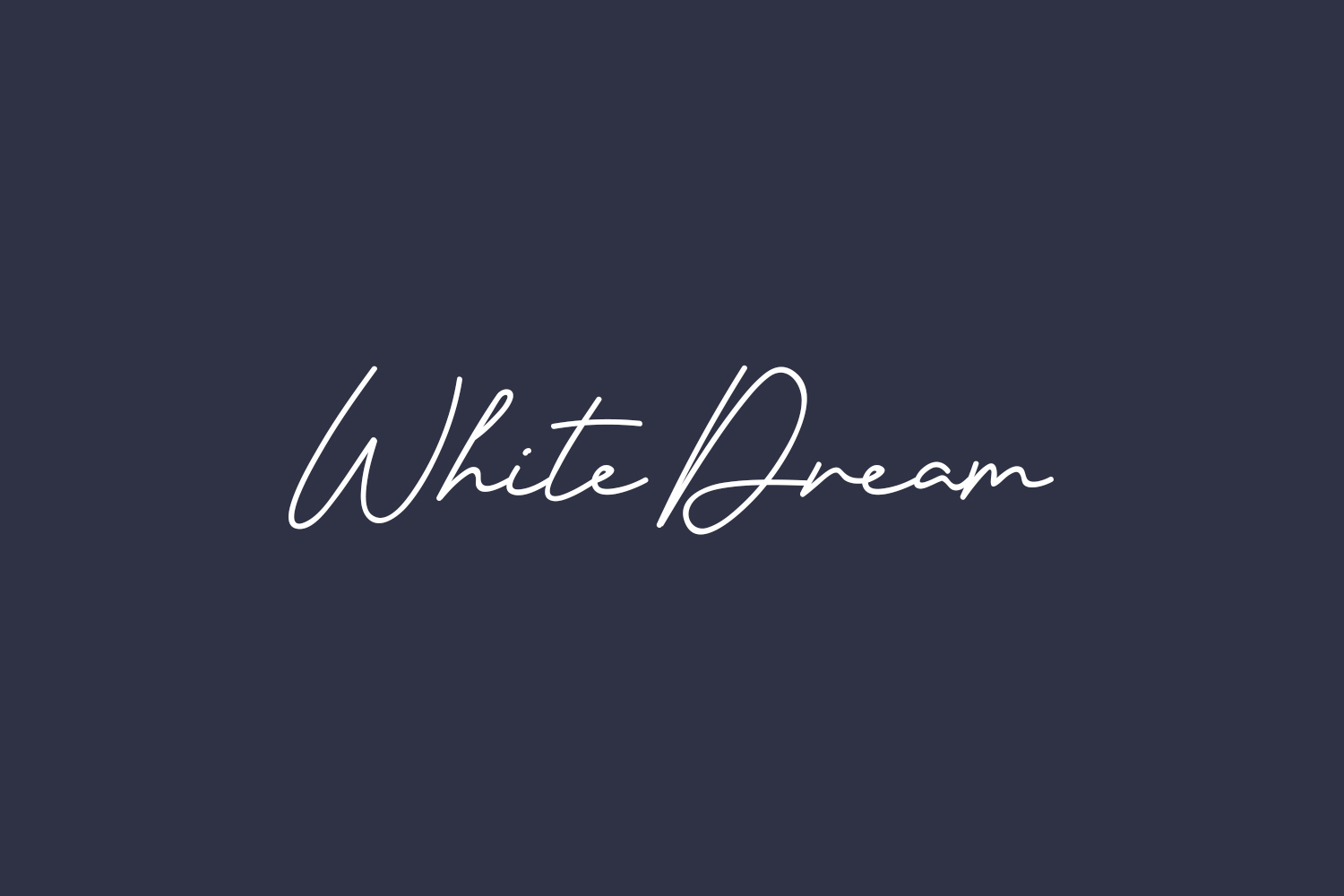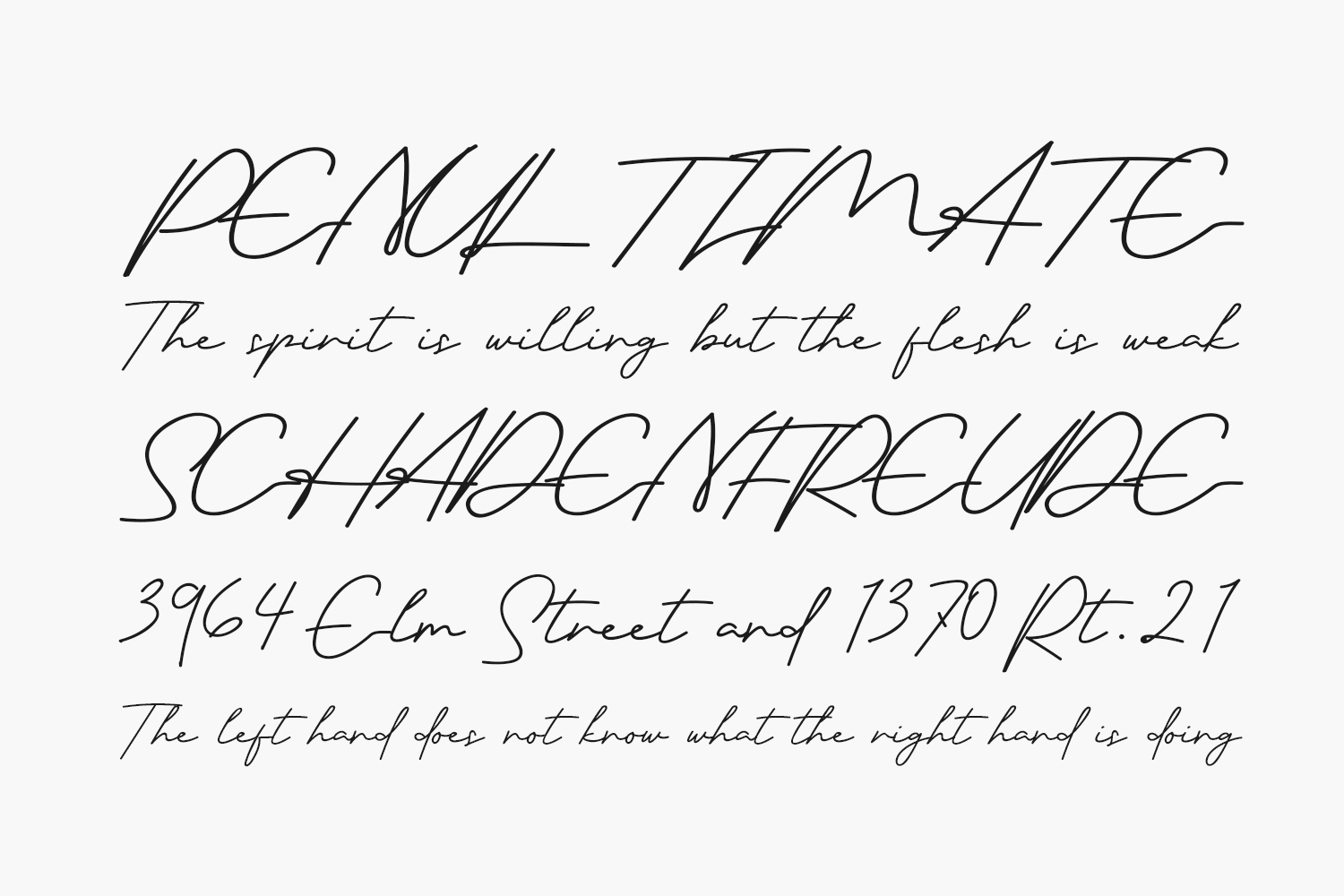
Introducing White Dream Free Font, a remarkable handwritten font meticulously designed to captivate and become an instant favorite. Imbued with a timeless charm, this font effortlessly infuses an air of elegance into every creative endeavor. With its contemporary appeal and refreshing aesthetic, White Dream effortlessly ensures that your work radiates a distinct presence, setting it apart from the rest. White Dream Free Font is free for personal use only. Please purchase the full version for commercial use.